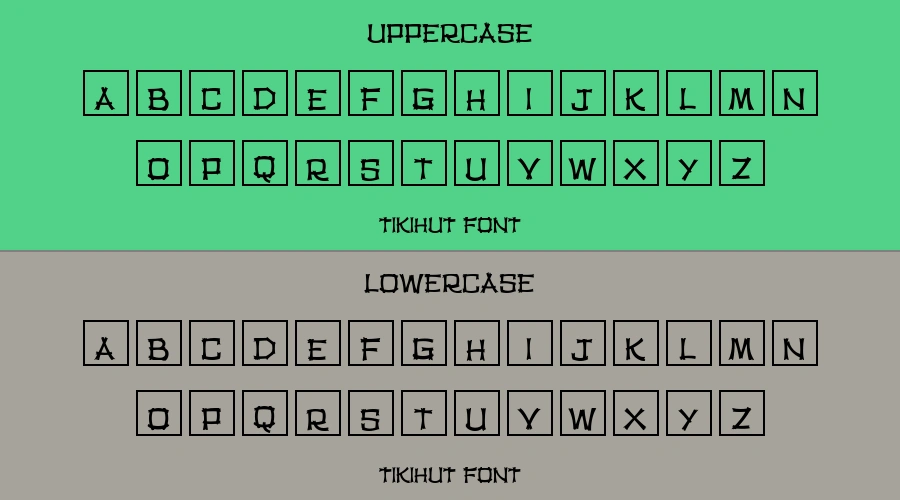
About TikiHut Font
TikiHut Font embodies typographic excellence through its masterful combination of elegant proportions and authenticity. Created for print publications, this typeface delivers exceptional consistency and technical excellence across all applications. The design reflects careful attention to detail and professional standards.
Advanced capabilities include distinctive rhythmic patterns and versatile stylistic sets, giving designers creative control. When used in technical diagrams, TikiHut Font exhibits remarkable rendering. The harmonious balance between aperture size and artistic merit sets this typeface apart.